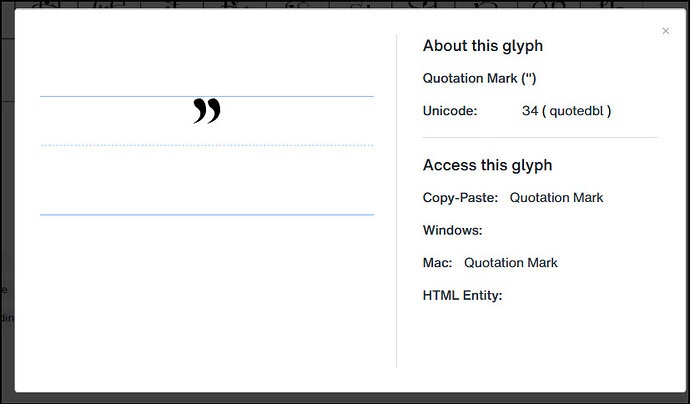
MIA Apostrophe chars in CFF/OT fonts, not only one?
I know that this is the HL forum, and not the “all sorts of weird font-related issues” support hub, but…don’t really know where else to turn at this time. I was recently seeking a display font for a customer. I was doing some mockup work in MSFT Publisher, which is quick-n-dirty for me, compared to INDD (when I’m doing font searches and layouts). I used two fonts, one called “LateFall-Floral” (Open Type CFF) and one named “Hello Paris Serif Regular” (ditto). I don’t recall exactly where I obtained these two fonts when I did, but 99% of the time, I bought from typical commercial sources like Myfonts.com, Creative Market, or the usual; I know that neither was some freebie download from some fly-by-night site.
When this first occurred, I tested it in MSFT Word, thinking initially that it was a Publisher issue, and nope, they don’t appear there (Word) and wait for it–here’s the kicker–they don’t appear in InDesign, EITHER. The glyph appears in the INDD glyph panel (see attached). But not on the page.
I just realized that neither of them will display the " (double-quotes) in INDD, either. Yes, both have the apostrophe encoded as 0x27; all of that seems fine. I’ve been trying to develop a proof block to check for everything else, character-wise, but until a moment ago, it had appeared to solely be the apostrophe (now includes the typical double-quote in INDD, at least, but that DOES work in Word/Publisher!). Other fonts seem to be working fine, but I haven’t checked all of them, of course. Like many, I have thousands of typefaces and fonts and I have no great way to test them all.
I’ve tried this and that but so far, nothing seems to solve it. Oh, one update–I’ve used these fonts previously without issues. HOWEVER, I just switched over from a Win10 box to a Win11 box, in the last two weeks. If there’s any clue there.
Any ideas, anybody? As to where to even start? I do a ton of font work and if by some magical weirdness of the odds, it’s ONLY these two fonts, fine…I’ll just trash them and live without them but what are the odds that it’s only these two OT-CFFs? Pretty bad odds, I should think. And, when I thought (wrongly) that it was “only” MSFT/Word, that was one thing but INDD? I’d be screwed. (And what are the odds that I somehow managed to casually select the only two faces in my collection that don’t work? Yeah, that’s what I think too.)
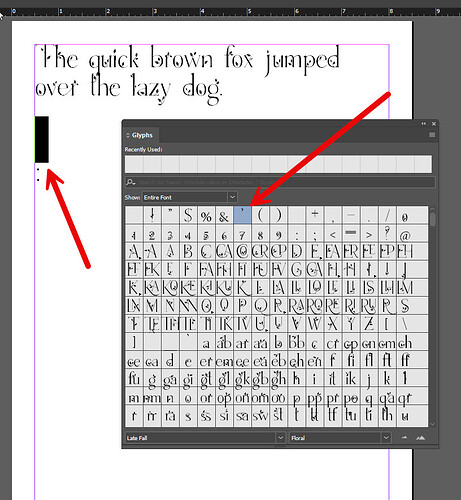
Try disabling Autocorrect. The font probably lacks the “curly quotes” found in Miscellaneous Punctuation.
Thanks–when I read your post, I thought, duh, that’s brilliant, that must be it–but alas, it’s not. I disabled autocorrect in both Word and in INDD and neither showed a single iota of difference. No apostrophes, no double quotes (You are right that neither has curly quotes, for, in case there’s a clue in there someplace).
What’s bizarre is, I am 99.99% sure that I used both of these with Win10 and never had an issue but I’ll boot up the Win10 box later and make sure I’m not lying (inadvertently, obviously). Dammit.
UPDATE:
Weirder and weirder. Hello Paris Serif Regular is now “working” on INDD; (nope, I didn’t do or change a single thing; I don’t use autocorrect in the first place in INDD and yes, I double-checked). I can insert the chars from the glyphs panel AND type them (’ and ") from the keyboard. However, _Late Fal_l is not–I can insert the char from the glyph panel, yes–but not from the keyboard. I’m going to go find some other OT-CFF and see if it has issues, too; maybe something that does have curlies as well as straights, see if that MIGHT play any part. I hate inconsistencies, I really do.
I am a Buddhist monk. Christmas is pretty much the same as any other day for me.
I tested the curly quotes on My Fonts. Late Fall Floral seems to be missing the double quotes.
Okay, that’s pretty cool. I am aware that not everybody celebrates the same holidays, which is why I mentioned “for those who observe it…” but sure, I still appreciate great customer service on a “regular” Sunday, too!
In the Late Fall Floral, did you notice (I’m sure you did), that it seems to have curlies at locations here (this is immediately adjacent to the apostrophe glyph); then there’s another glyph, another closing quotation mark, also curly, as the very last glyph in the font. Unicode 34, it says. Attached that one too. I mean, a pic of it FWIW. (With “uni-34” in the filename for easy finding.)
Hello Paris Serif Regular seems to have curlies, if you can call them that. Little stubby chubby ones, but…is it me, or do neither of these fonts appear to have any opening quotes at all? Am I behind the curve here? I would have sworn that my usuals like foundry fonts (Adobe Garamond, let’s say) have a) straight quotes and b) straight apostrophes in the base set, and then b) the curlies in the General Punctuation area, AND c) they have opening and closing, yes? I don’t pretend to be some typeface/font-creation expert, I’m not by any means, but I do use typography a LOT and I’m a bit befuddled to see typefaces with solely closing curlies. Unless I somehow missed them…I mean, if you’re creating a closing dbl-quote mark, why the heck are you NOT doing the openers???